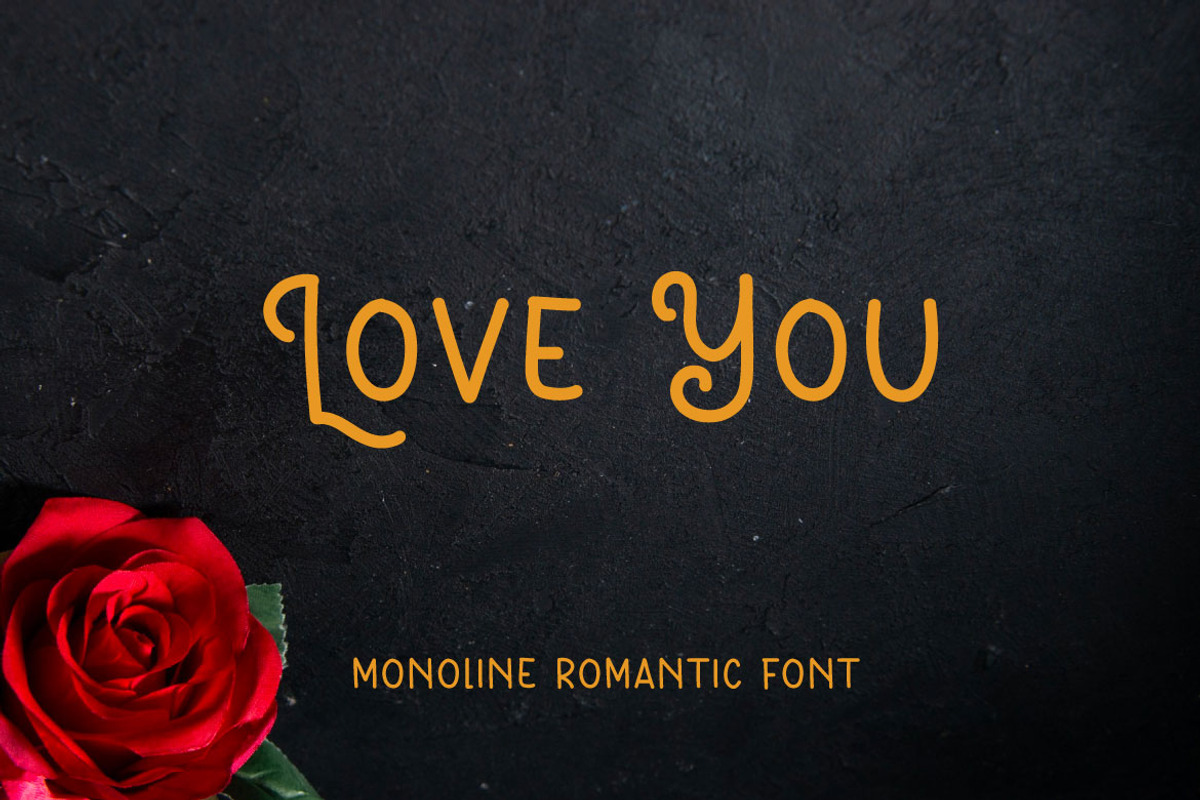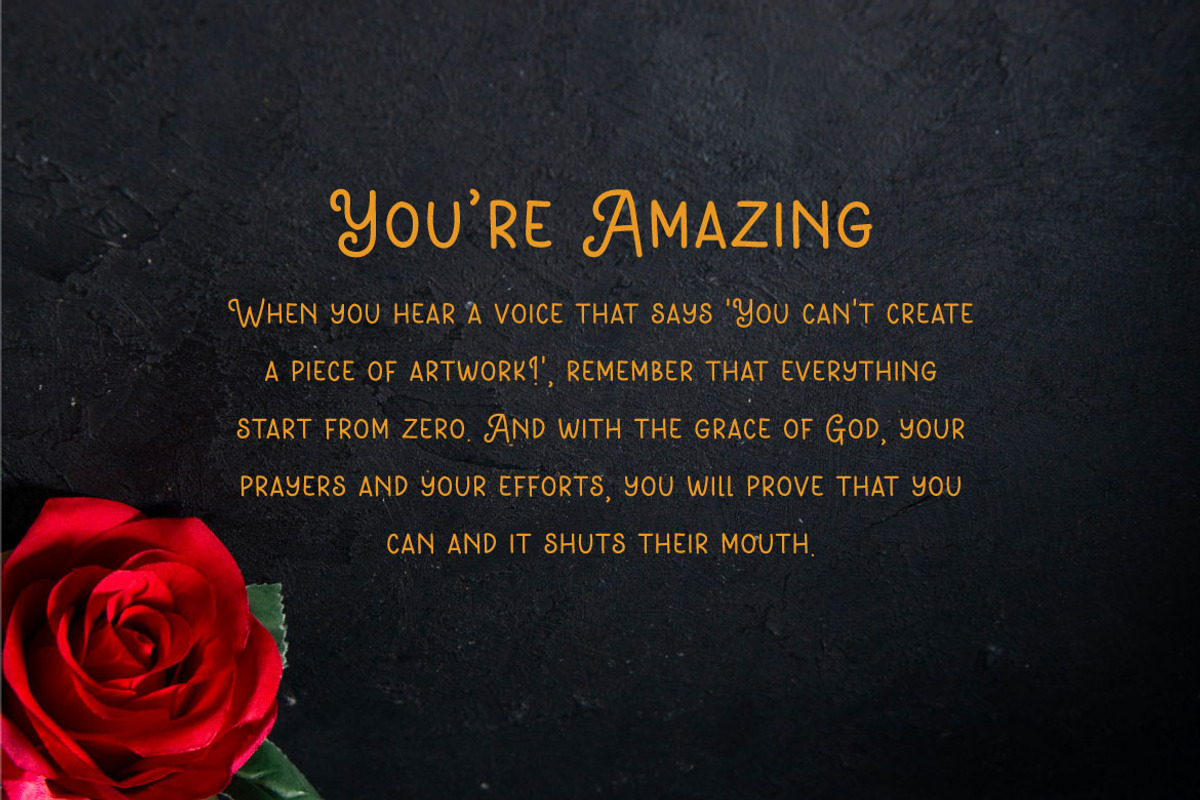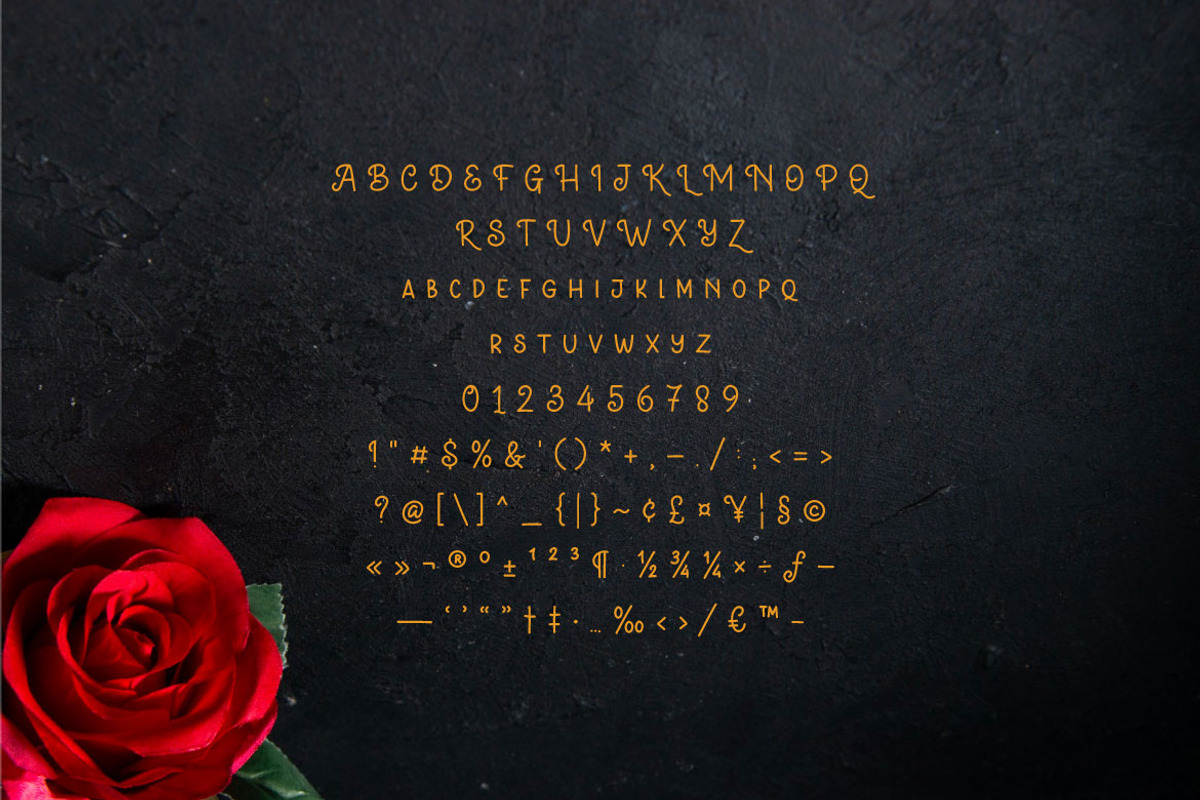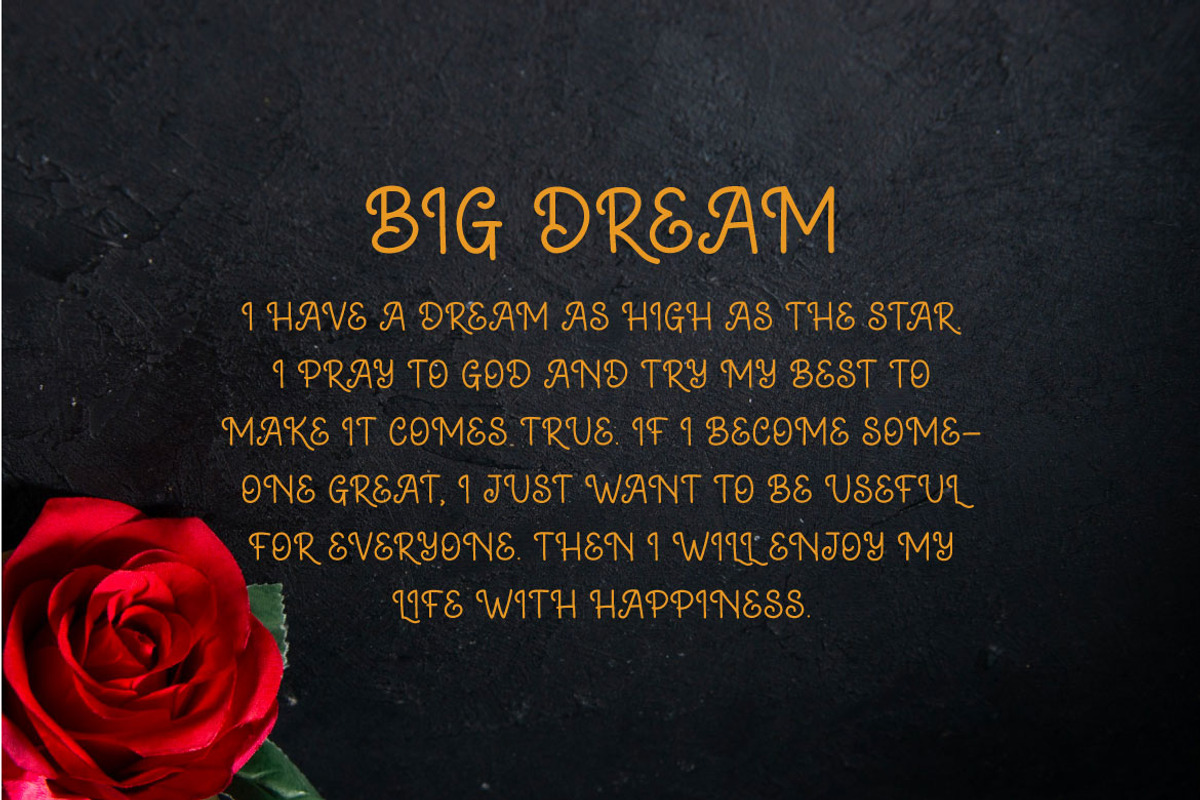
Love You - Handwriting Script Font
Hello! Love You is a monoline handwritten script font. Love You can be used in any works such as comic book, poster, school, flyer, book title, advertisement, social media content, logo and many more.